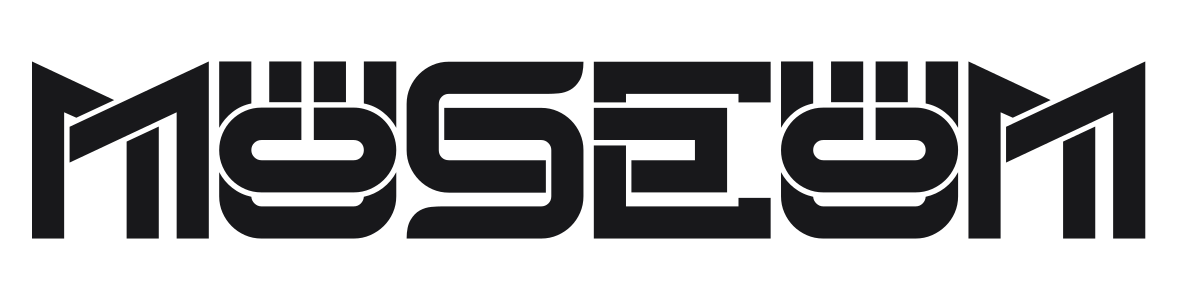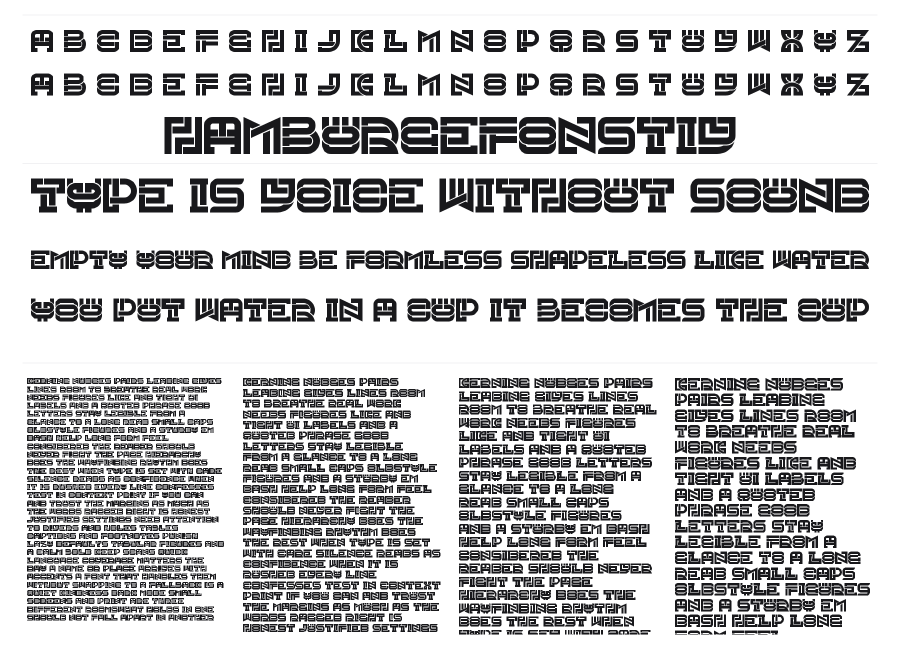
Museum
Museum is a bold geometric display face built on a strict modular grid, where every character is divided by internal cuts and rounded rectangular compartments. The segmented construction gives it a heavy institutional presence that recalls 1970s architectural signage and constructivist graphic design. It carries real weight at large sizes and works best when the structure can breathe.